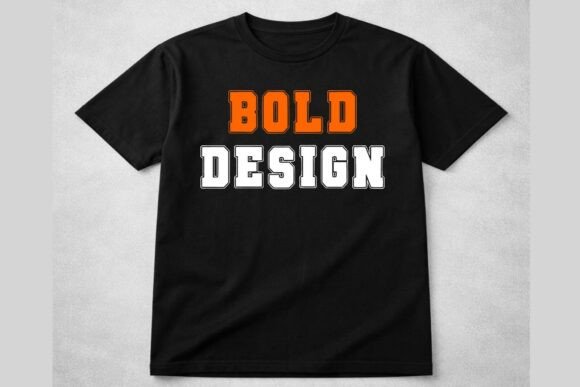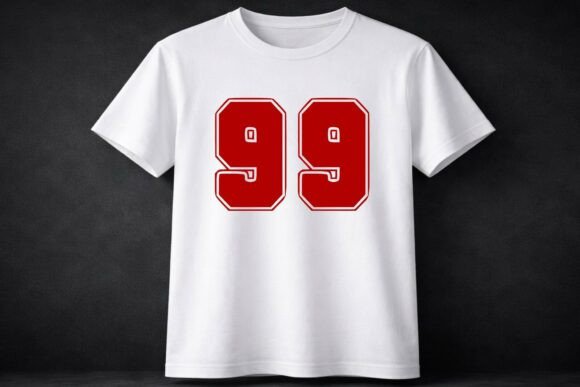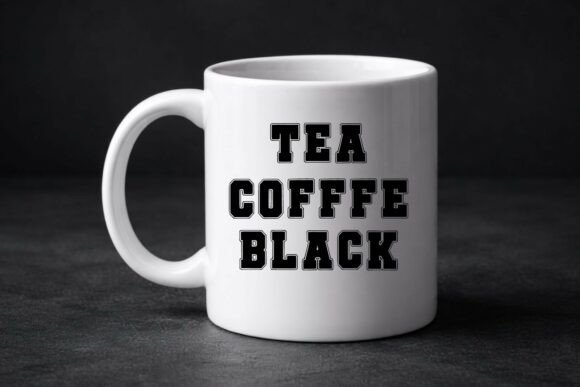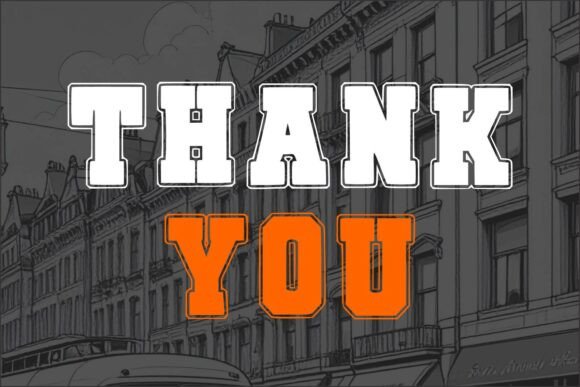
Introducing Block Retro Font: The Ultimate Choice for Sports Branding and Vintage Designs
Are you looking for a font that exudes a strong, sporty character and a retro collegiate vibe? Look no further than Block Retro Font, a bold college-style display font that’s perfect for sports branding, university themes, team logos, posters, apparel, and vintage design projects. In this article, we’ll dive into the features and benefits of Block Retro Font, and explore how it can elevate your designs to the next level.
The Inspiration Behind Block Retro Font
Block Retro Font is inspired by classic varsity and athletic lettering, with strong block shapes and a retro collegiate style that’s reminiscent of the golden age of sports and university life. The font’s bold and chunky design is perfect for creating eye-catching headlines and designs that demand attention.
Key Features of Block Retro Font
- Bold and Chunky Design: Block Retro Font features a bold and chunky design that’s perfect for creating eye-catching headlines and designs.
- Retro Collegiate Style: The font’s retro collegiate style is inspired by classic varsity and athletic lettering, giving it a unique and nostalgic feel.
- Strong Block Shapes: The font’s strong block shapes give it a sturdy and athletic look that’s perfect for sports branding and team logos.
- Perfect for Headlines: Block Retro Font is designed specifically for headlines and display text, making it perfect for posters, flyers, and other marketing materials.
Use Cases for Block Retro Font
Block Retro Font is a versatile font that can be used in a variety of design projects, including:
- Sports Branding: The font’s bold and athletic design makes it perfect for sports branding, including team logos, jerseys, and marketing materials.
- University Themes: The font’s retro collegiate style makes it perfect for university themes, including brochures, posters, and website designs.
- Posters and Flyers: The font’s bold and eye-catching design makes it perfect for posters and flyers, including event promotions and advertising materials.
- Apparel: The font’s bold and chunky design makes it perfect for apparel, including t-shirts, hoodies, and other clothing items.
- Vintage Design Projects: The font’s retro style makes it perfect for vintage design projects, including logo designs, packaging, and advertising materials.
Benefits of Using Block Retro Font
There are many benefits to using Block Retro Font in your design projects, including:
- Instant Recognition: The font’s bold and eye-catching design ensures instant recognition and attention.
- Professional Look: The font’s strong block shapes and retro collegiate style give it a professional and polished look.
- Versatility: The font’s versatility makes it perfect for a wide range of design projects, from sports branding to vintage designs.
- Easy to Read: The font’s bold and chunky design makes it easy to read, even at small sizes.
Block Retro Font is a bold and versatile font that’s perfect for designers and crafters looking to add a strong sporty character to their designs. With its retro collegiate style, strong block shapes, and bold and chunky design, Block Retro Font is the ultimate choice for sports branding, university themes, team logos, posters, apparel, and vintage design projects. So why wait? Download Block Retro Font today and take your designs to the next level!